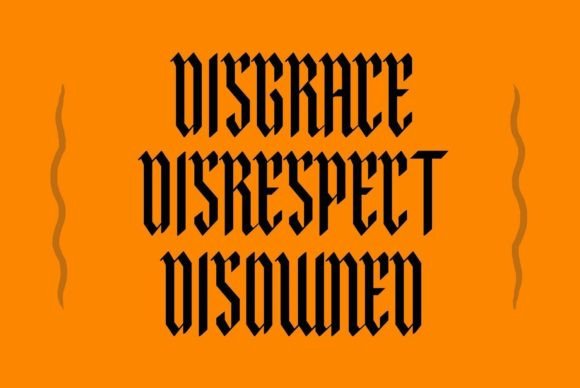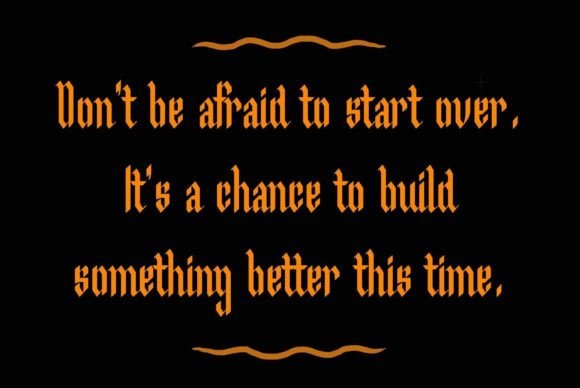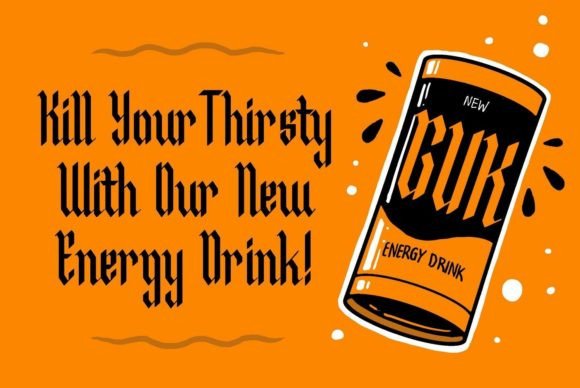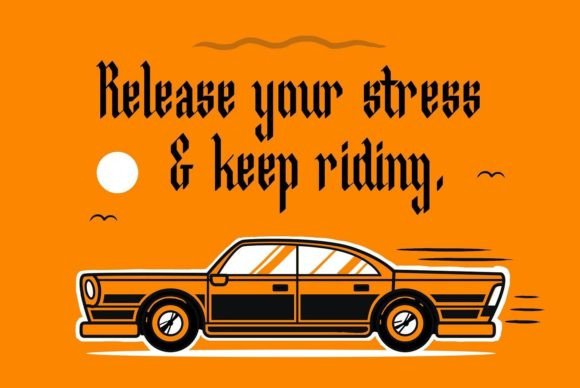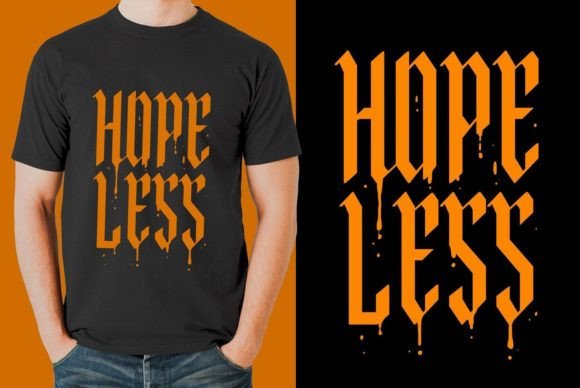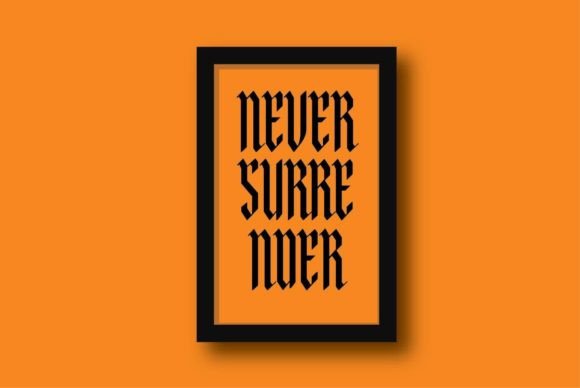
Introduction to Malegroth Font
Malegroth is a modern and fancy blackletter font, perfect for crafty projects that need stunning typography.
Use it for urban-style designs, birthday cards, personal branding, tattoo-related logos, and more Your designs will stand out.
Key Features of Malegroth Font
Why Choose Malegroth Font?
Malegroth Font offers exceptional quality and versatility, making it a valuable addition to your design toolkit. Whether you’re creating for personal projects or commercial use, Malegroth Font delivers professional results.